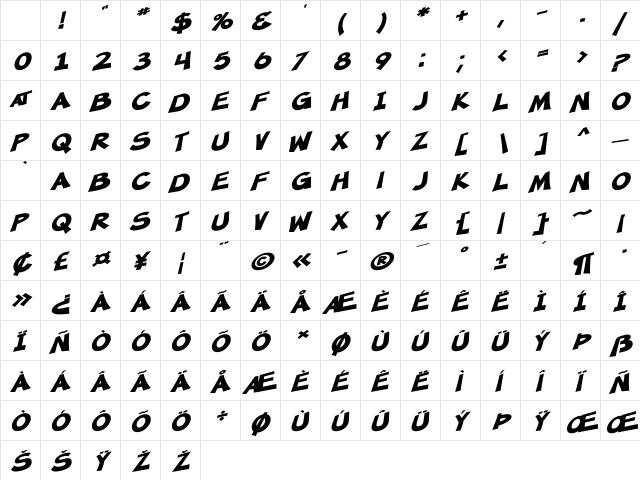
Complete SF Minced Meat Bold Oblique glyph index. Displaying only characters natively supported by SF Minced Meat Bold Oblique font.
SF Minced Meat is a composed and adaptable typeface that performs quietly and consistently across a wide range of design contexts. The slanted form adds forward momentum and visual energy. Its bold stroke weight gives it real presence on the page.